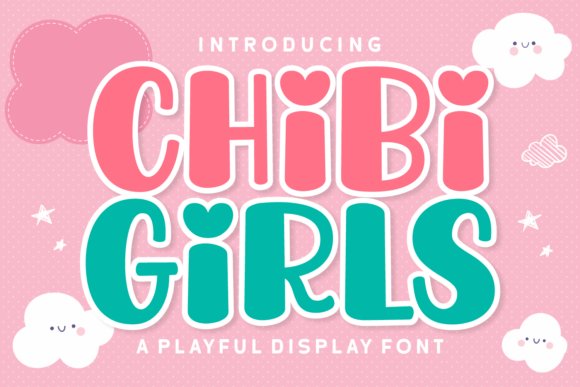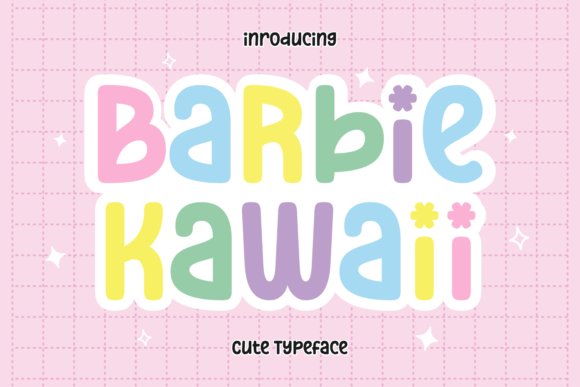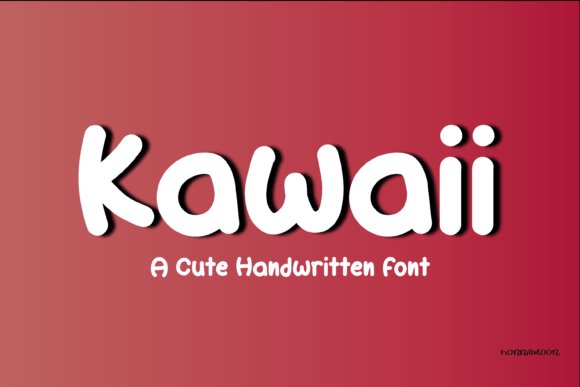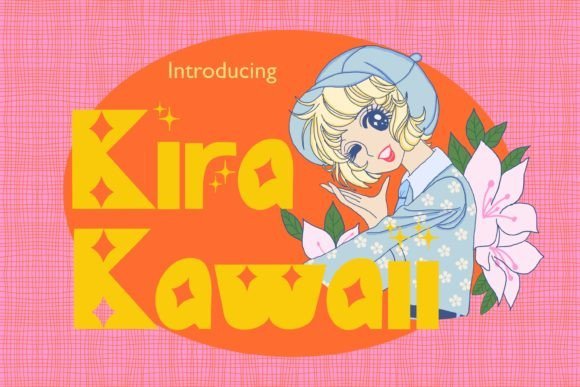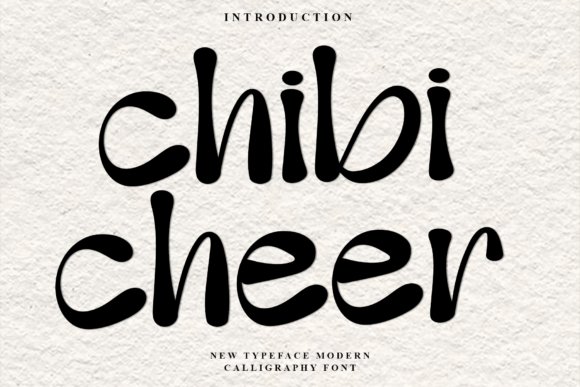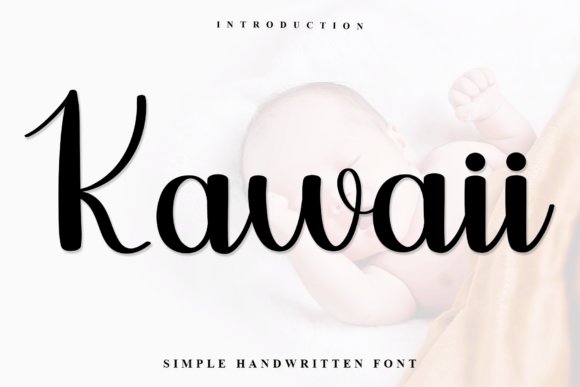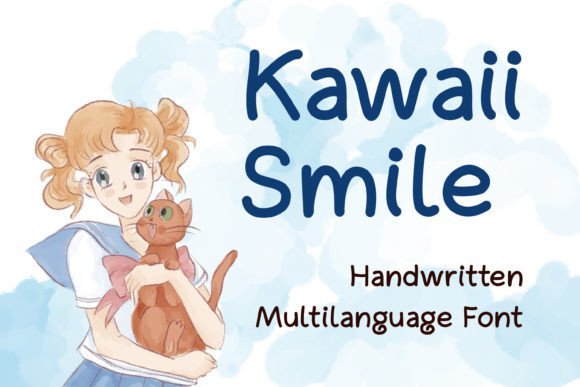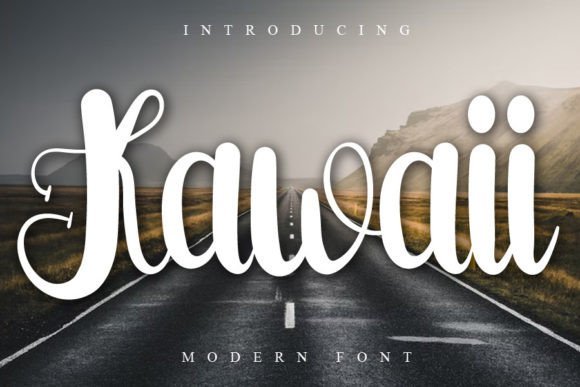
29 Playful Kawaii Fonts for Posts, Stickers and Shop Labels in 2026
kawaii fonts bring a bubbly, friendly personality to designs aimed at kids, hobby crafters, and boutique makers. This collection of 29 typefaces spans rounded sans, chubby display letters, and hand-drawn scripts that work well for stickers, packaging, and cheerful headers.
This guide highlights mood groupings, pairing tips, and simple licensing notes so you can test fonts on mockups before committing. Try a few combinations on sample art to see which style matches your color palette and artwork.
1. Chibi Girls Font
Chibi Girls Font
Chibi Girls reads like a hand-lettered set of bubble forms: soft, rounded strokes, slightly uneven baselines and playful offsets that feel intentionally handmade. It leans into kawaii fonts style with lively letter heights and irregular counters, which makes headlines, stickers and short copy feel like they’re smiling back at the reader.
The family includes upper- and lowercase characters, numerals, punctuation and multilingual accents for wider reach. For best results use generous leading, pastel palettes and a neutral sans for body text; small kerning nudges and modest drop shadows help the letters retain clarity at display sizes.
My Recommendation: I use Chibi Girls when a project needs immediate cheer-party invites, kid-focused packaging and social graphics all benefit from its handcrafted warmth. Its bold personality reduces the need for extra illustration, letting typography do the emotional work. Pairing it with a simple sans keeps layouts readable while preserving the font’s expressive charm.
2. Barbie Kawaii Font
Barbie Kawaii Font
Barbie Kawaii combines high x-height and rounded terminals to deliver a friendly display face that reads clearly at large sizes. The shapes have a toybox charm with subtle retro hints that suit children’s books, posters and educational materials where approachability matters. It carries energy without becoming fussy, making it reliable for short headlines and cover text.
This type shines with pastel color schemes, sticker-style illustrations and simple icons; modest tracking keeps its warmth while preventing crowding. Ideal for branding, packaging and greeting cards, it pairs well with restrained sans serifs for longer copy and works cleanly as a webfont at display sizes after basic testing.
My Recommendation: I pick Barbie Kawaii for projects aimed at young audiences or playful brands because it reads cheerfully and feels nostalgic without heavy ornament. It’s great for toy labels, event posters and classroom materials where instant recognition is key. I usually combine it with soft illustrations and muted pastels to maintain clarity and visual charm.
3. Kawaii Font
Kawaii Font
Kawaii Font is a rounded, script-adjacent display face that favors soft curves and flowing connections, giving copy a handwritten, upbeat cadence. Bold strokes and looping terminals lend personality to logos, party invites and social headers, while a gently bouncy baseline keeps the tone lively yet controlled. Short phrases become expressive marks rather than plain type.
OpenType alternates and ligatures help avoid repetition and create a more organic rhythm when the same letters repeat. Pair it with a neutral sans for body text, watch tracking at large sizes to prevent collisions, and use candy-colored palettes or frosting-like gradients to amplify its cheerful presence. Reserve it primarily for headlines and brand accents rather than extended paragraphs.
My Recommendation: I reach for this Kawaii Font when a project needs the feel of friendly handwriting without messy strokes-perfect for bakery logos, stickers and celebration graphics. The alternates let me craft bespoke wordmarks quickly and avoid repetitive patterns. It’s my go-to when I want a joyful signature that still reads cleanly across print and screens.
4. Kira Kawaii Font
Kira Kawaii Font
Kira Kawaii mixes playful roundness with tiny decorative sparkles borrowed from classic shojo manga; the letterforms feel handwritten but intentionally stylized, with soft terminals and gentle swashes that nudge each character toward the cute end of the spectrum. The design includes alternate glyphs and tiny star-like ornaments that sit well as accents, and it sits squarely among popular kawaii fonts for designers who want personality without sacrificing clarity.
This face performs well at display sizes for invitations, posters, apparel, and digital planner headers where the glittery alternates can punctuate words; it also keeps acceptable legibility on merchandise when set moderately large. Pair it with a neutral sans for balance, use pastel palettes to amplify its charm, and pay attention to tracking since the ornamented forms need breathing room to read cleanly.
These 29 kawaii fonts make it easy to add a lovable, approachable tone to small-run products and social content. Test weights and readability at tiny sizes, preview designs on mockups, and check license terms if you plan to sell items.
Picking the right type often comes down to matching emotion and legibility rather than choosing the flashiest option. Spend a little time pairing fonts with your illustrations and colors, and support independent type designers when you can.